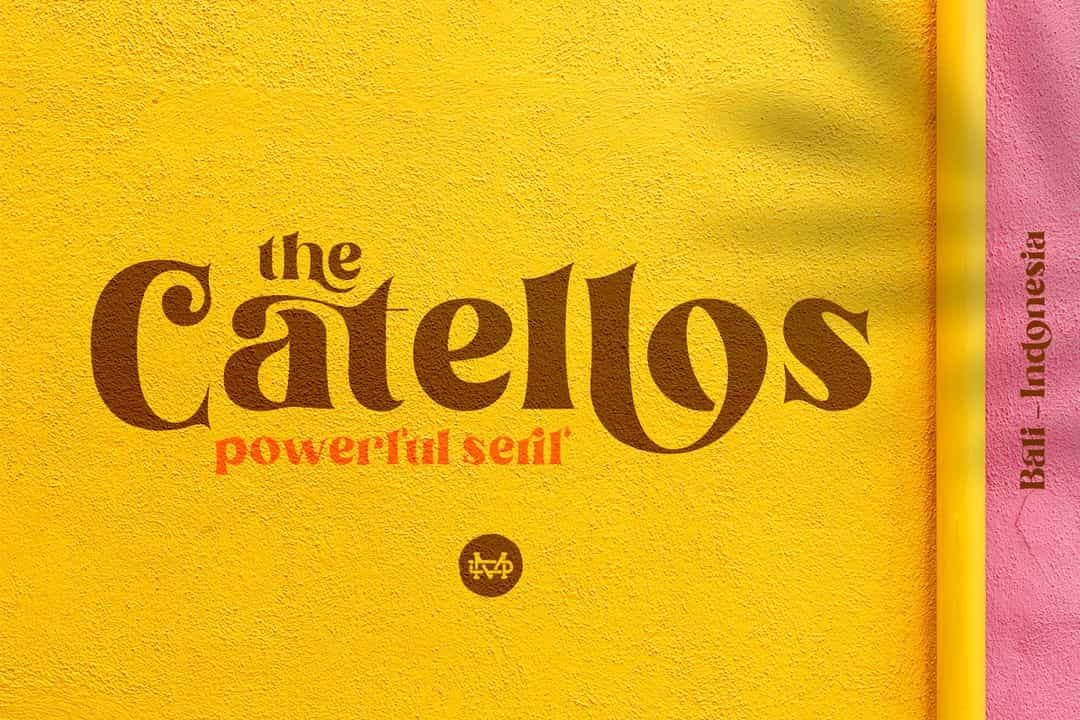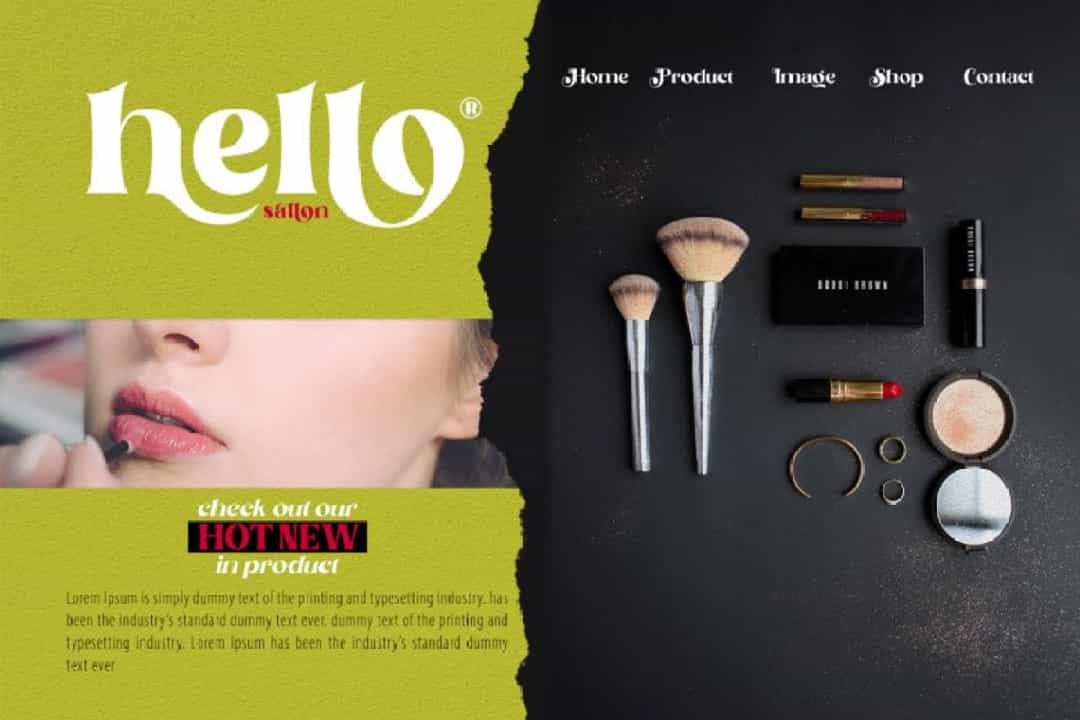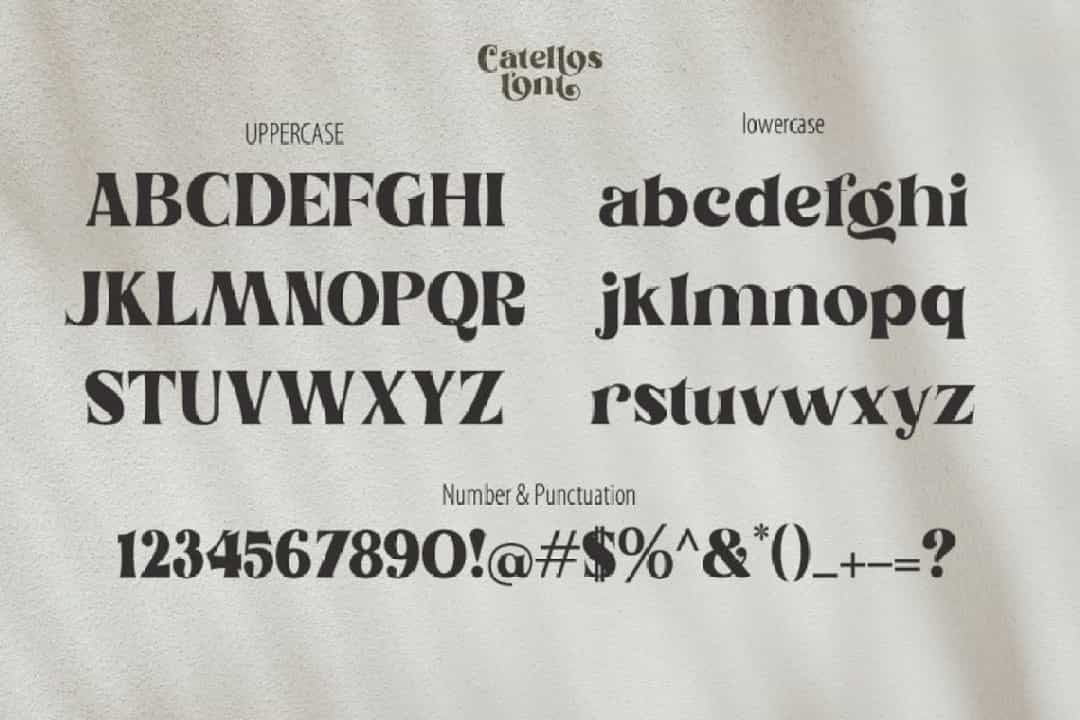
Catellos Powerful Serif Font
Catellos is a serif font family with two styles – regular and bold – both of them contain a wide range of alternates and ligatures and can be used in packaging, branding, invitations, quotes, t-shirts, labels, posters and logos.